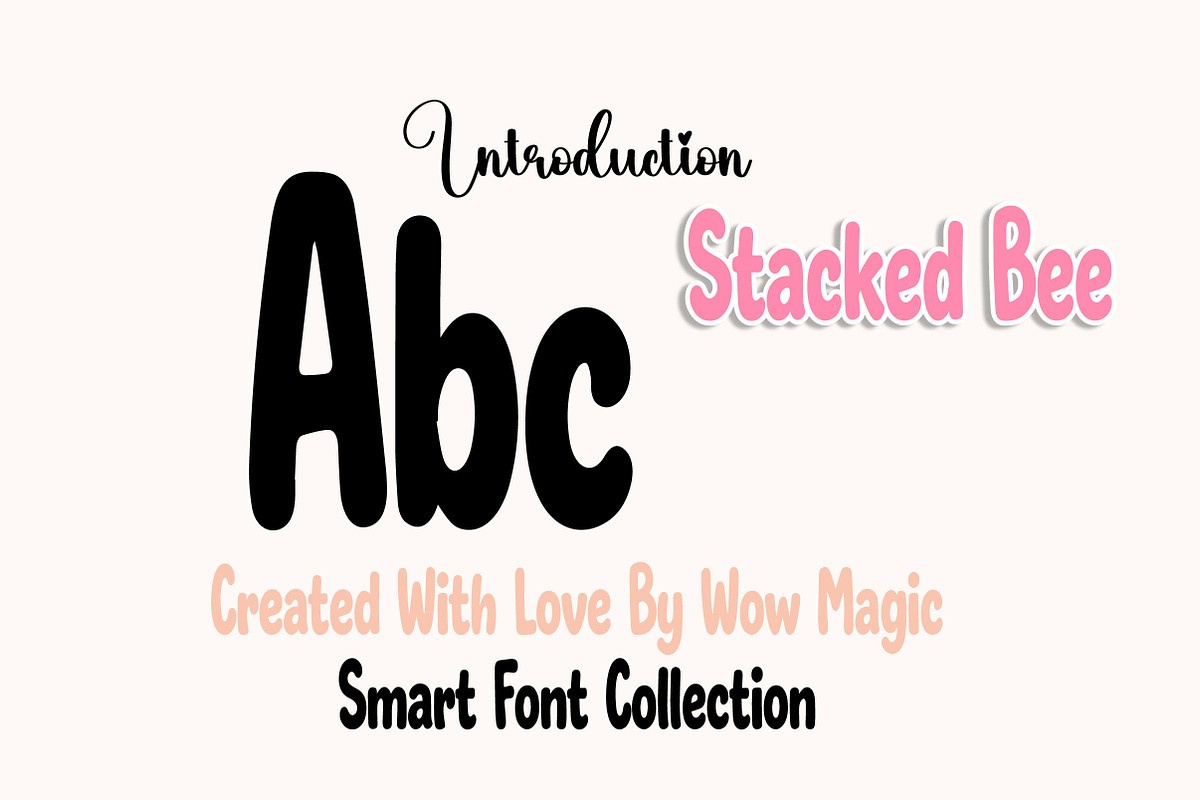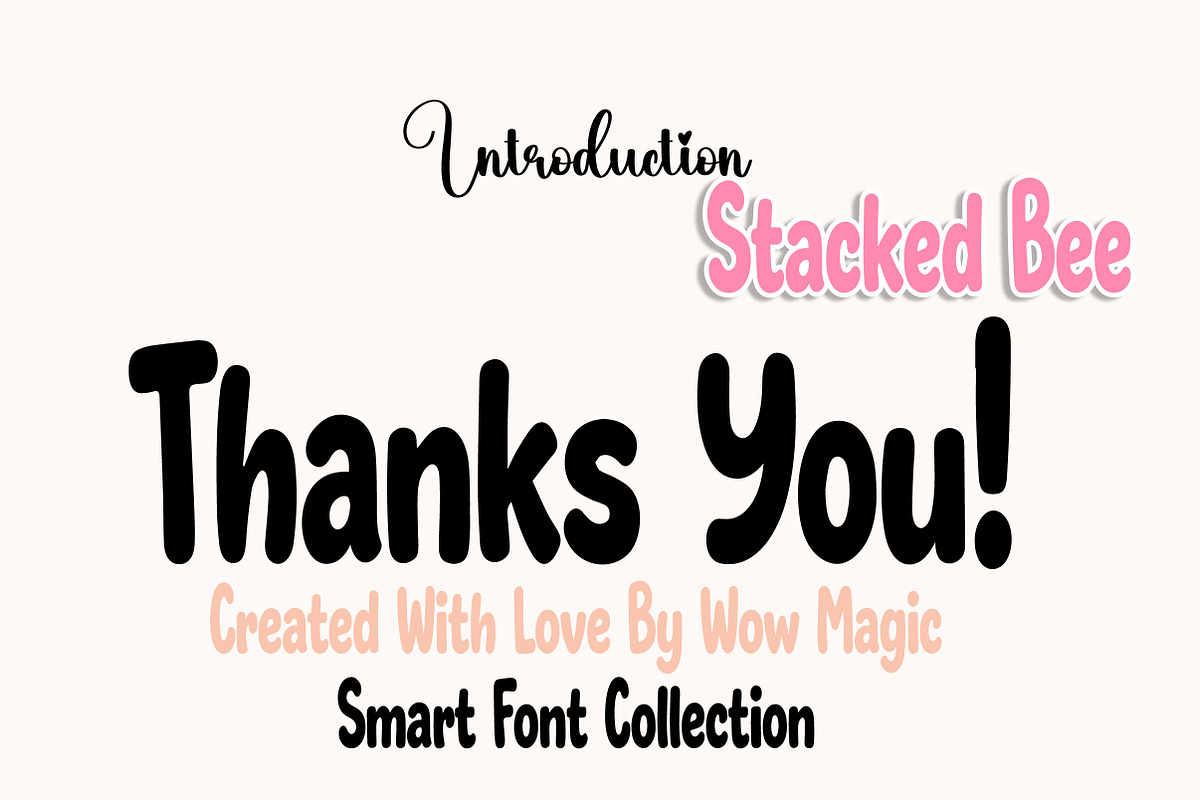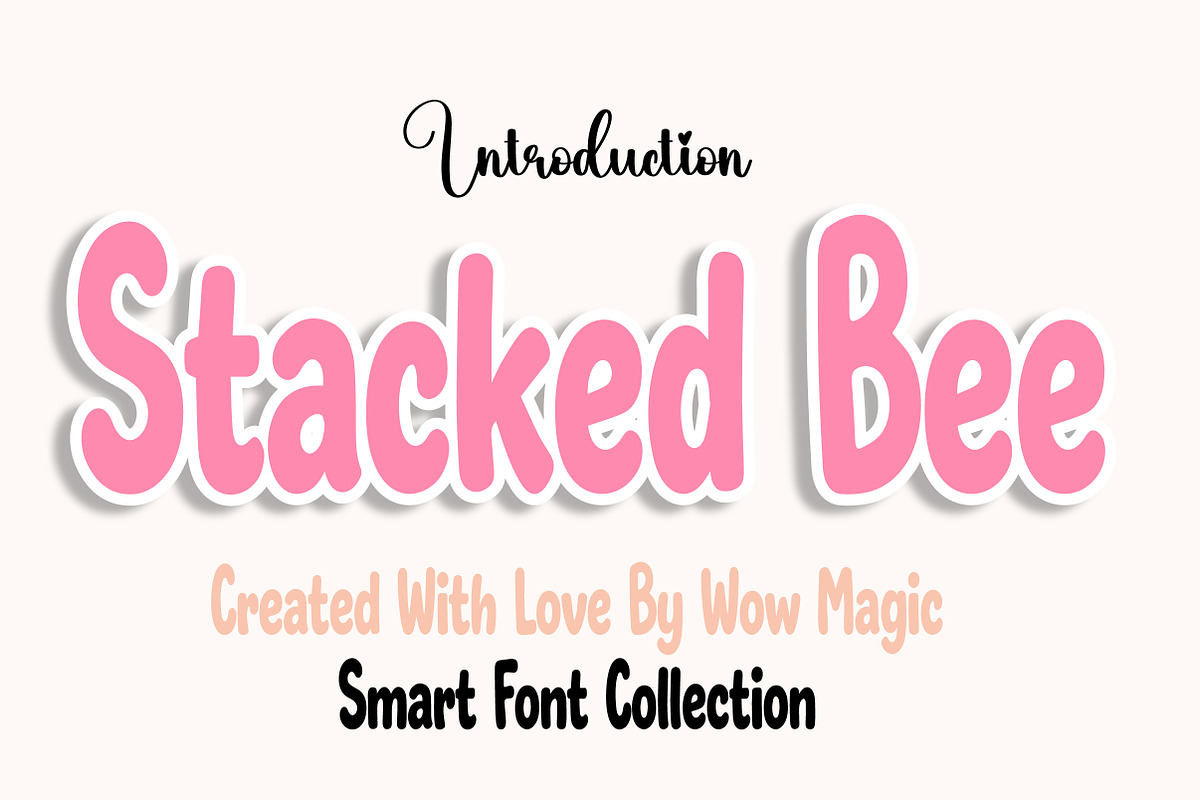
Stacked Bee
Stacked Bee is a bold and playful display font designed with tall rounded shapes and a smooth handcrafted feel. Its thick strokes, soft curves, and compact letterforms create a cheerful visual style that feels both friendly and full of personality.
The font has a fun and approachable character that makes it perfect for kids branding, product packaging, posters, logos, book covers, social media graphics, and playful headline designs. Its rounded structure keeps it highly readable while adding a warm and lively touch to every word.
Stacked Bee is ideal for designers who want a typeface that feels cute, bold, and energetic. Whether you are creating fun branding or eye-catching promotional graphics, this font adds a joyful and modern charm to both print and digital projects.